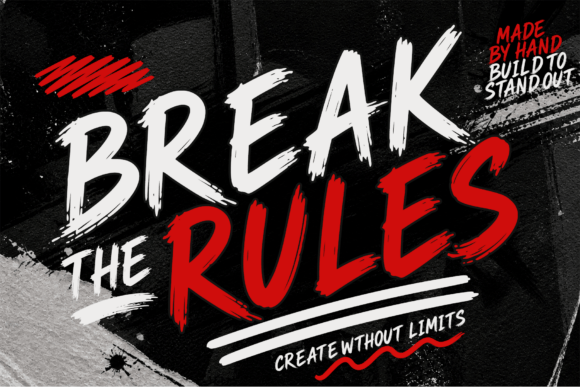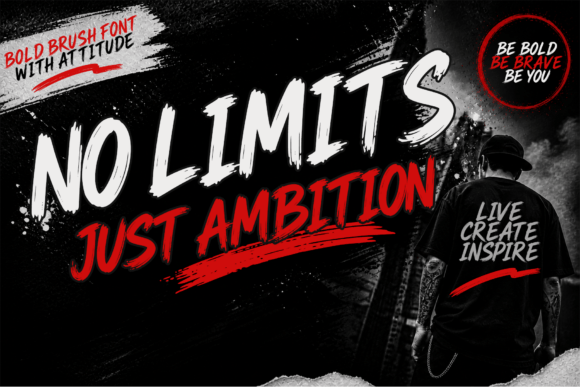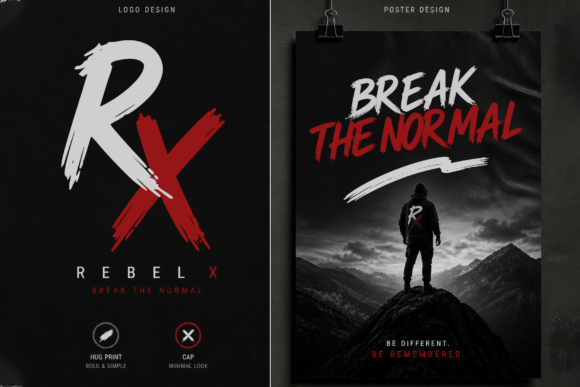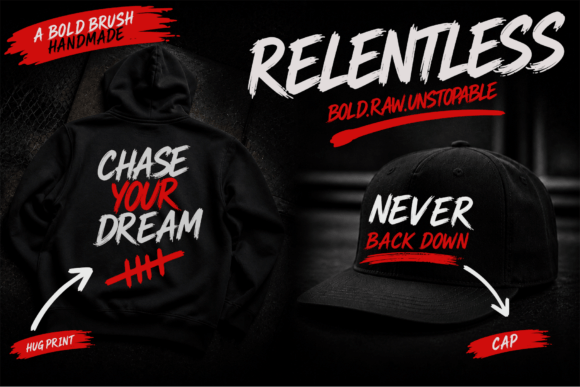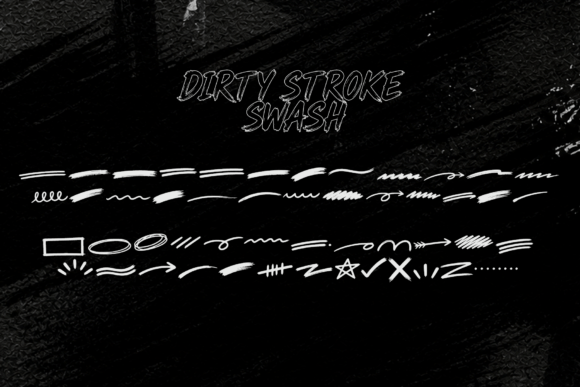
Unleash Your Creativity with Dirty Stroke Font: A Vibrant and Daring Brush Font
Are you looking for a font that can add a bold and energetic touch to your designs? Look no further than Dirty Stroke, a vibrant and daring brush font that is sure to command attention. Born out of rough, hand-drawn strokes and gifted with additional swash attributes, this font exudes raw energy and offers a unique versatility that can elevate your designs to the next level.
The Raw Energy of Dirty Stroke
Dirty Stroke is a font that is not for the faint of heart. Its textured boundaries and kinetic shapes mingle to offer a solid, rough-hewn aura that cannot be ignored. Every character of this font resounds with a raw, energetic vibe, making it the ideal choice for designs necessitating a forceful visual impact. Whether you’re looking to create stunning visuals, dominant headlines, or unforgettable type work, Dirty Stroke has got you covered.
Design Possibilities with Dirty Stroke
The swash elements of Dirty Stroke offer a unique versatility, empowering you to develop a wide range of designs with ultimate simplicity. From branding to poster design, merchandise to digital content demanding a contemporary and edgy appeal, Dirty Stroke effortlessly makes its mark. This font is perfect for designers and crafters who want to add a bold and energetic touch to their work.
Key Features of Dirty Stroke
- Rough, hand-drawn strokes: Dirty Stroke is born out of rough, hand-drawn strokes that give it a unique and energetic feel.
- Swash attributes: The font comes with additional swash attributes that offer a unique versatility and allow you to create stunning visuals with ease.
- Textured boundaries: The textured boundaries of Dirty Stroke give it a solid, rough-hewn aura that cannot be ignored.
- Kinetic shapes: The kinetic shapes of the font add to its energetic vibe and make it perfect for designs necessitating a forceful visual impact.
Why Choose Dirty Stroke?
So, why choose Dirty Stroke over other fonts? Here are just a few reasons:
- Unique and energetic feel: Dirty Stroke has a unique and energetic feel that sets it apart from other fonts.
- Versatility: The swash elements of the font offer a unique versatility that allows you to create a wide range of designs with ease.
- Easy to use: Despite its bold and energetic vibe, Dirty Stroke is easy to use and can be incorporated into your designs with ultimate simplicity.
Tips for Using Dirty Stroke
Here are a few tips for using Dirty Stroke in your designs:
- Use it for headlines: Dirty Stroke is perfect for creating dominant headlines that demand attention.
- Experiment with swash elements: The swash elements of Dirty Stroke offer a unique versatility, so don’t be afraid to experiment and try new things.
- Pair it with other fonts: Dirty Stroke can be paired with other fonts to create a unique and interesting contrast.
| Font Name | Dirty Stroke Font |
| Author | cocodesign |
In conclusion, Dirty Stroke is a vibrant and daring brush font that is sure to add a bold and energetic touch to your designs. With its rough, hand-drawn strokes, swash attributes, textured boundaries, and kinetic shapes, this font exudes raw energy and offers a unique versatility that can elevate your designs to the next level. Whether you’re a designer or crafter, Dirty Stroke is a must-have font that can help you create stunning visuals, dominant headlines, and unforgettable type work with ultimate simplicity.